33 Essential Boho Fonts to Inspire Joyful, Free-Spirited Creativity in 2026
Boho Fonts unlock a free-spirited aesthetic that blends handwritten charm, rustic textures, and earthy display styles for modern creatives. Whether you’re designing wedding invites, logos, or social media graphics, these 33 selections bring bohemian typefaces and artisanal warmth to every project.
In this 2026 roundup I highlight versatile boho lettering, script and decorative fonts with practical tips for pairing, licensing notes, and use-case ideas. Expect a mix of vintage-inspired scripts, organic sans alternatives, and ornamental display faces to help you craft soulful, joyful designs.
1. Boho Font
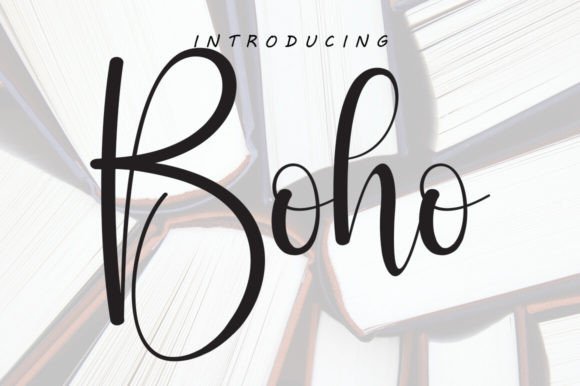
Boho strikes a graceful balance between spontaneous handwriting and refined calligraphy. Its flowing strokes and delicate terminals create an intimate, artisanal feel while remaining surprisingly versatile for headlines, social media graphics, and boutique branding. The typeface delivers generous alternates and tasteful swashes that let you craft bespoke wordmarks without heavy editing, and its subtle baseline shifts add a human touch that reads as authentic rather than manufactured.
Technically, Boho performs well as an OpenType family: the kerning is thoughtfully tuned and contextual alternates reduce collisions in long words. For web and app use you’ll want to test at smaller sizes-its charm lives in display contexts where the swoops can breathe. Because it includes multiple language glyphs and stylistic sets, Boho works across locales while preserving a cozy, handcrafted personality.
Design-wise, Boho responds beautifully to textured backgrounds, muted earthy palettes, and natural photography, bringing a bohemian warmth to stationery, wedding invitations, and artisanal packaging. Pair it with a clean geometric sans for contrast or a thin serif for editorial elegance. If you need a readable, stylish script that reads intimate and modern, Boho is a strong choice for elevated, craft-forward projects-especially where a romantic, free-spirited aesthetic is the goal.
My Recommendation: I’d reach for this Boho Font when the brief calls for warmth and personality-think boutique wedding suites, handmade product labels, or lifestyle blogs. Its alternates let me create distinct logotypes without heavy vector work, and the font’s balanced kerning keeps design time down. It’s my go-to when I want a handcrafted look that still feels polished and professional.
2. Baby Boho Font
Baby Boho delivers a modern calligraphy voice with playful swashes and smooth stroke endings that feel effortless on invitations and product packaging. The regular weight sits comfortably between casual handwriting and structured script, making it legible at mid-size headlines while still offering flourish options for emphasis. What stands out is the font’s PUA encoding: every decorative glyph, swash, and alternate is easy to access even without advanced design software, which speeds up production for non-designers.
Because Baby Boho includes a generous set of stylistic alternates and ligatures, you can create unique signatures and branding marks simply by swapping characters. It pairs exceptionally well with minimalist sans-serifs for contemporary baby-product labels or with textured backgrounds for organic skincare branding. When using for cut crafts, test single-line conversions carefully-some swashes may need simplification for clean vinyl or embroidery paths.
In practical terms, Baby Boho is a pragmatic pick for small-batch packaging, social post headers, and hand-lettered quotes where charm and clarity must coexist. The PUA mapping is a real time-saver for teams that don’t have Glyphs access; just pull characters from Font Book or Character Map and you’re ready to style. For anyone needing an accessible, stylish script with decorative options, Baby Boho earns its keep.
My Recommendation: I use Baby Boho when a project needs approachable elegance-think boutique baby-brand identity, labels, or delicate wedding pieces. The PUA extras let me add flair quickly without relying on heavy software, which is great for fast-turn mockups. It’s ideal when you want hand-lettered warmth but need practical, production-friendly files.
3. Boho Font
This incarnation of Boho leans into seasonal craft and DIY uses, offering beginning and ending washes that read like playful brushstrokes. The decorative terminals work beautifully in holiday greetings, Cricut projects, and embroidery monograms where a stitched or cut flourish adds instant charm. Because the characters were designed with ornamental washes, they layer well over textured papers and photographic backdrops-a handy trait for greeting cards and product tags that need visual depth.
From a workflow perspective, Boho is versatile: its alternates make it straightforward to compose repetitive motifs without obvious repetition, and the thicker strokes hold up well when converted to SVG for vinyl cutting or laser engraving. Be mindful that extreme swashes can create overlapping shapes in small-scale uses; trimming or selecting simpler alternates solves this while preserving the typeface’s whimsical energy. It pairs particularly well with condensed sans-serifs or light-brushed serifs for contrast.